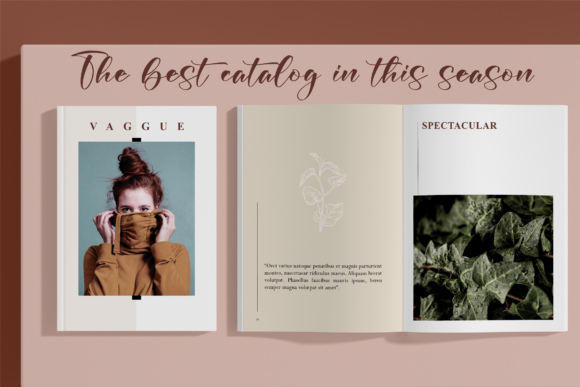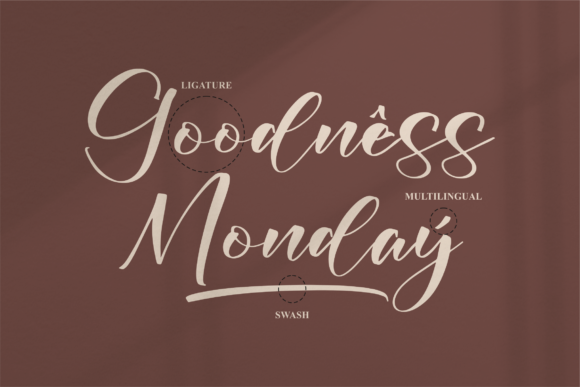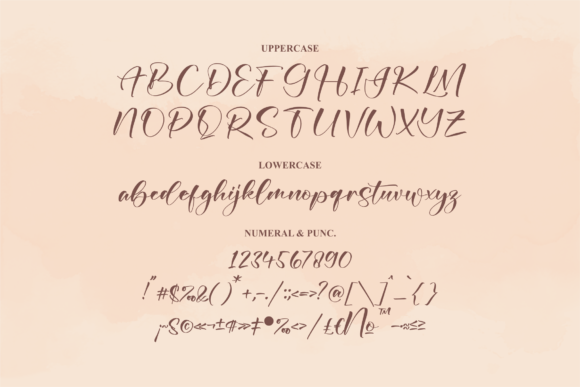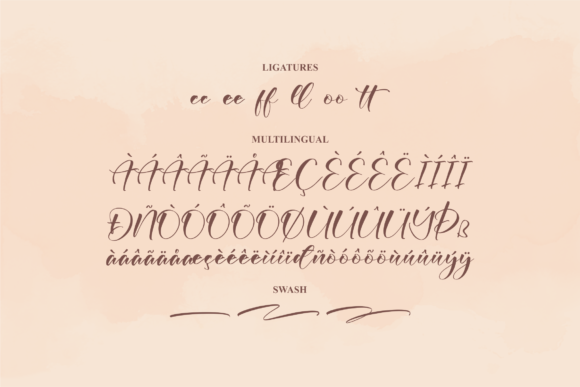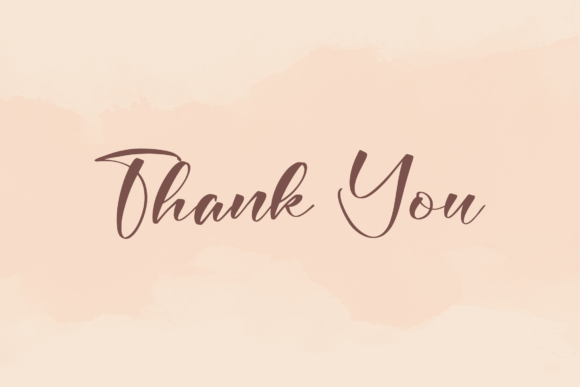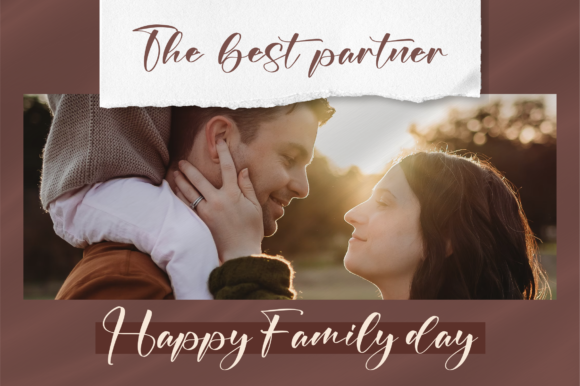
About Ronatalia Font
Ronatalia is an exquisite script font that exudes beauty, elegance, and sophistication. Its versatile nature makes it the perfect choice for a wide range of creative projects, ensuring that your designs are infused with a touch of charm and allure.
Whether you’re crafting a logo that needs to leave a lasting impression or embarking on a branding project that requires a signature touch, Ronatalia rises to the occasion with its captivating curves and graceful strokes. Its ability to seamlessly integrate into various design contexts ensures that your brand identity is imbued with a sense of refinement and class.
When it comes to homeware designs and product packaging, Ronatalia adds a layer of luxury and style that elevates the overall aesthetic. From mugs to labels, each item is transformed into a work of art that captivates and delights consumers.
Quotes and posters come to life with Ronatalia, as its elegant script adds depth and personality to every message. The font’s unique and beautiful touch ensures that every word is conveyed with finesse, leaving a lasting impact on viewers.
Ronatalia’s versatility extends to everyday items such as shopping bags and t-shirts, where its graceful curves and intricate details transform these items into fashion statements and conversation starters. It adds an air of sophistication to book covers, creating anticipation for the stories within.
For personalized touches, Ronatalia shines on name cards and invitation cards, setting the tone for special events and leaving a lasting impression on recipients. Greeting cards become heartfelt expressions of emotion, thanks to the font’s ability to convey warmth and sentiment.
Photography and watermarks are enhanced by Ronatalia’s timeless charm, serving as a signature touch that elevates the visual appeal of images and reinforces brand identity.
In essence, Ronatalia is a stunning script font that effortlessly enhances the allure of your projects. Its versatility and ability to adapt to a wide range of design contexts make it a valuable asset for any creative endeavor. With Ronatalia as your design companion, your projects are bound to exude a beautiful script taste that captivates, inspires, and resonates with audiences.